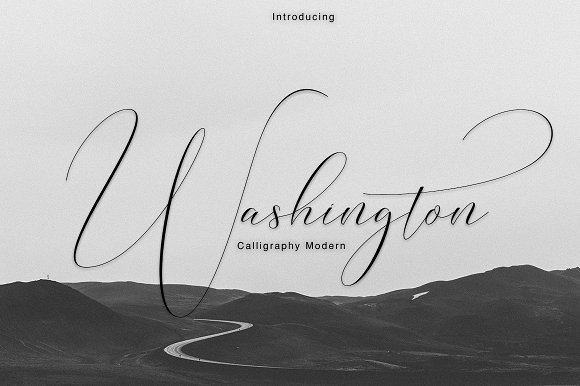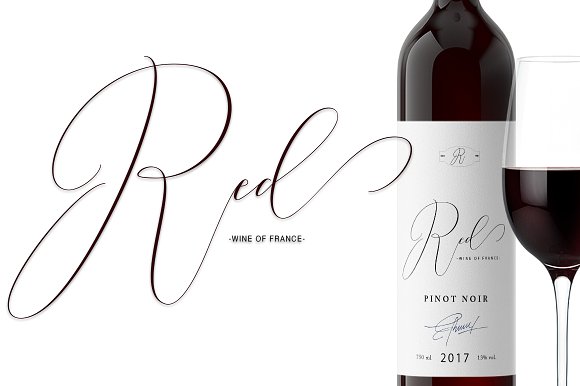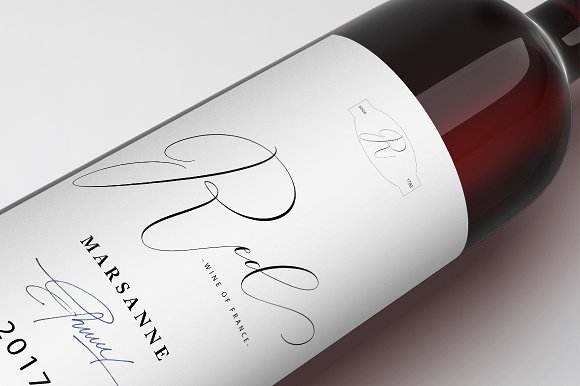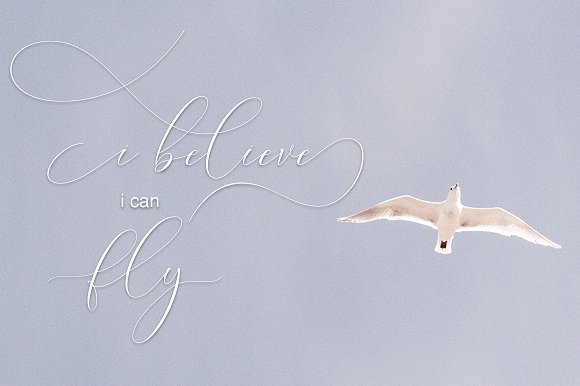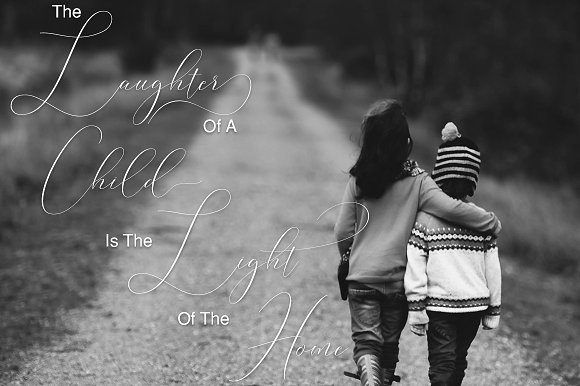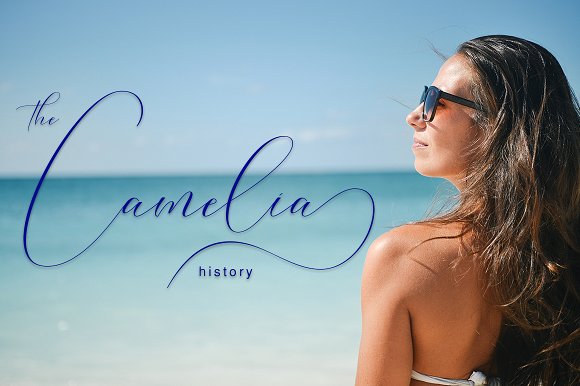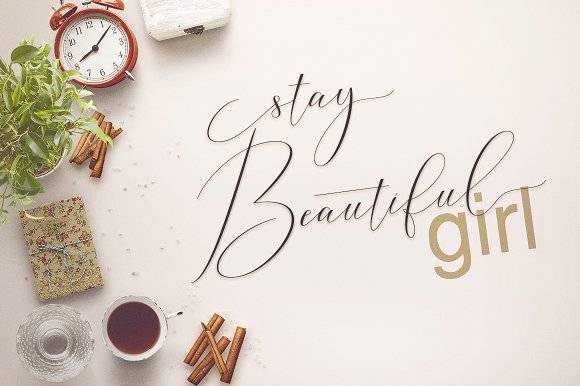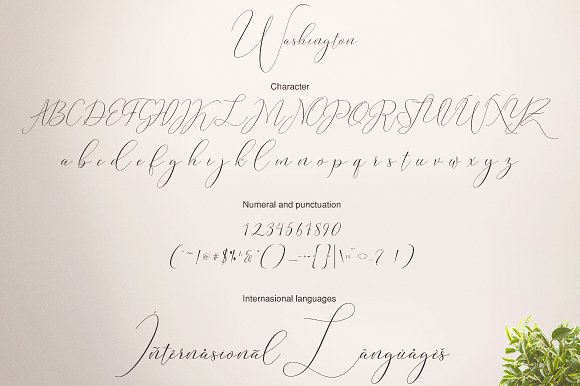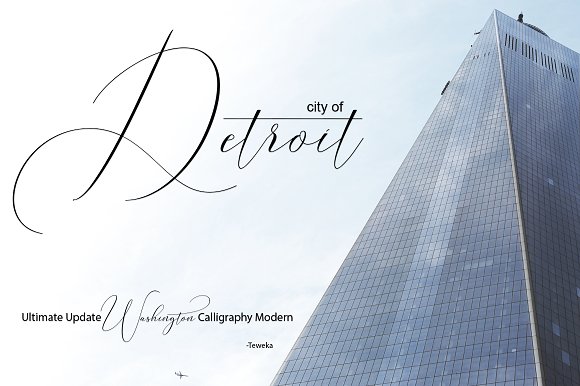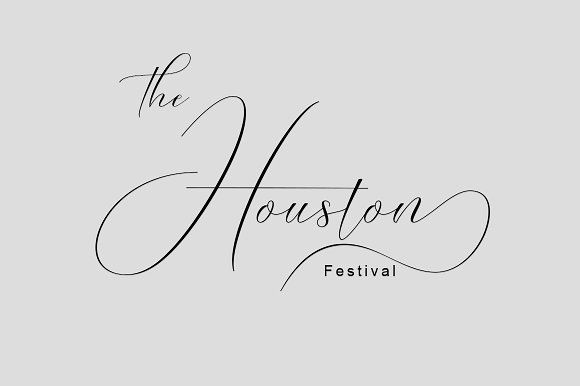
Washington Font
About Washington Font
Washington is a delicate hand-crafted font packed with more than 460 unique glyphs.
This elegant calligraphy font allows you to instantly jaw-dropping and professional looking designs. It works great for both professional and craft designs. It doesn’t matter if you are making a menu for an Greek restaurant, Branding materials for a notary’s office or a invite, the Washington font has you covered.